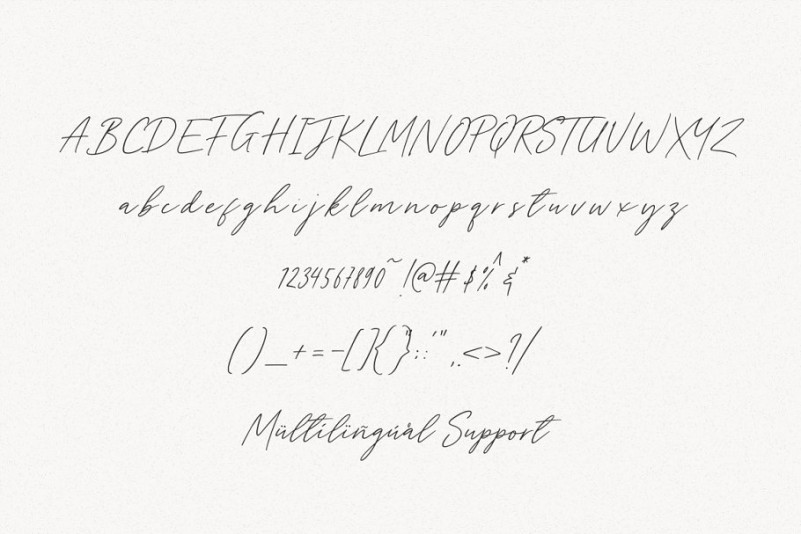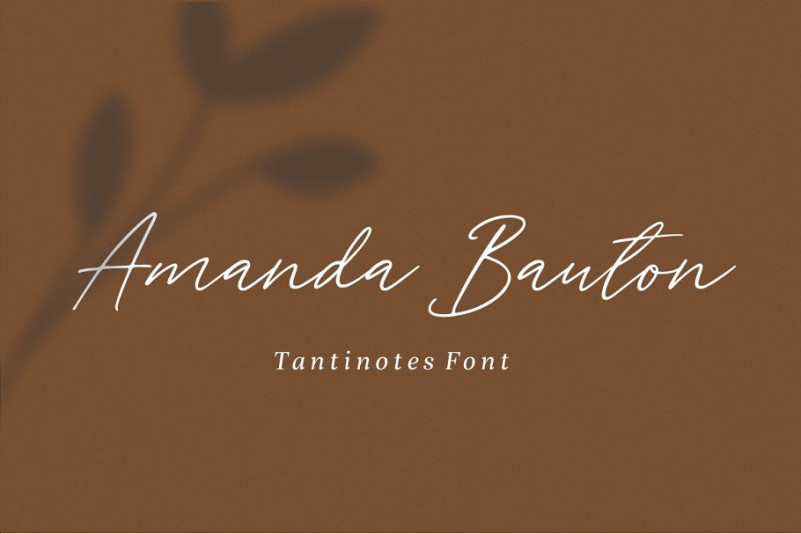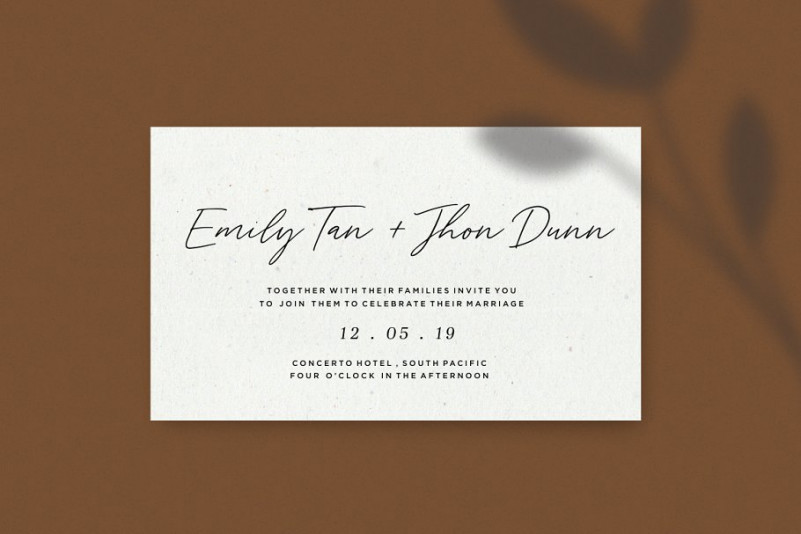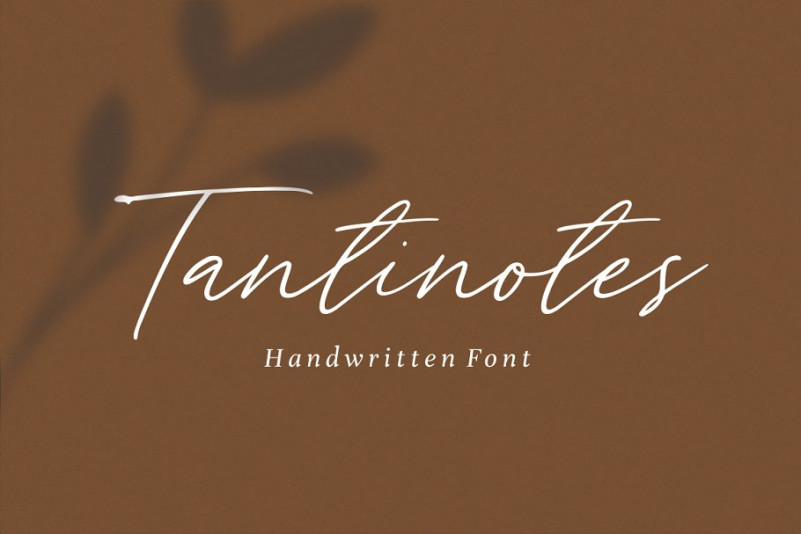
Tantinotes Handwritten Font
Introducing Tantinotes Font. It is designed by Sronstudio, this is a premium font, are sold on creativemarket, but it was great, it is free today for download. Tantinotes Handwritten Font is a natural handwritten font, this font Is perfect for logo, invitation, stationery, wedding designs, social media posts, advertisements, product packaging, product designs, label, photography, watermark, special events or anything.